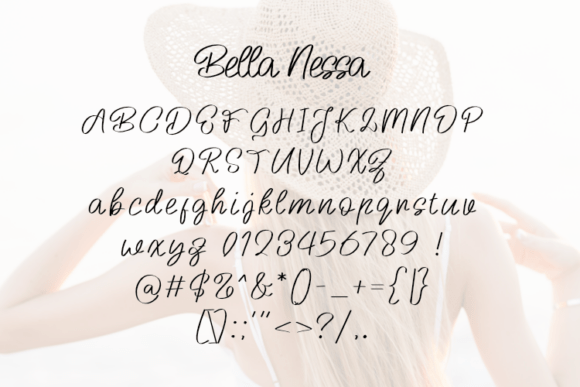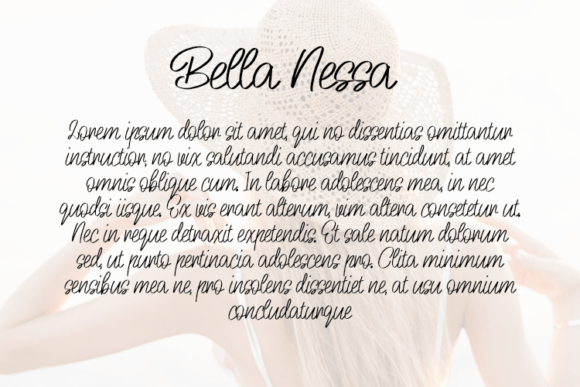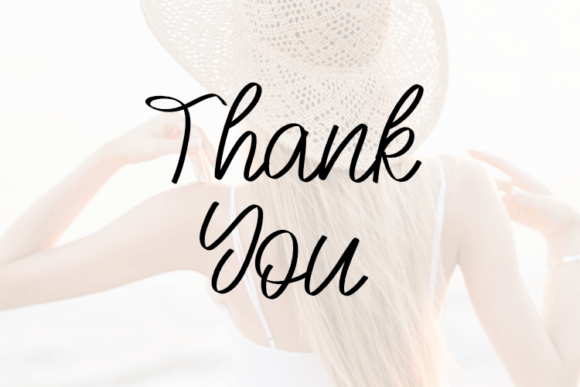
Introducing Bella Nessa Font: Elevate Your Design Game with Style and Versatility
In the realm of apparel creation, the right font can make all the difference between a design that stands out and one that fades into the background. For designers and crafters seeking a unique edge, Bella Nessa Font emerges as a game-changer. This meticulously crafted font is not just a tool; it’s a gateway to transforming your creative visions into stunning realities. Whether you’re designing t-shirts, hoodies, or any merchandise, Bella Nessa is poised to become your go-to companion.
The Essence of Bella Nessa: A Flawless Blend of Creativity and Functionality
Bella Nessa Font is the epitome of versatility, designed to meet the diverse needs of the apparel creation world. What sets it apart is its impeccable attention to detail, ensuring that every project you undertake exudes a professional finish. The font’s design is centered around making your designs pop, adding that extra oomph needed to capture attention in a crowded marketplace.
Unlocking Creative Potential with Bella Nessa
Bella Nessa Font is more than just a typeface; it’s a creative partner that helps you infuse every project with a unique signature style. Its design embodies a flawless blend of creativity and functionality, making it an indispensable asset for:
- T-Shirt Design: From casual wear to custom merchandise, Bella Nessa adds a touch of elegance and sophistication to your t-shirt designs.
- Merchandise Creation: Whether it’s hoodies, mugs, or phone cases, Bella Nessa helps you create visually appealing merchandise that stands out.
- Branding: For businesses looking to create a distinctive brand identity, Bella Nessa offers a unique typography solution that can be used across various marketing materials.
Why Choose Bella Nessa Font?
Choosing Bella Nessa Font for your design projects comes with numerous benefits:
- Unique Style: Bella Nessa offers a distinctive style that can elevate your designs and set them apart from the competition.
- Versatility: Its versatility means you can use it for a wide range of projects, from apparel to branding.
Bella Nessa Font is a versatile and meticulously designed typeface that can transform your apparel creation and design projects. With its unique style, seamless compatibility, and accessibility in both OTF and TTF formats, Bella Nessa is poised to become an essential tool in your design arsenal. Whether you’re a professional designer or a crafter, Bella Nessa Font invites you to explore new creative horizons and make your designs stand out in the most stylish way possible.